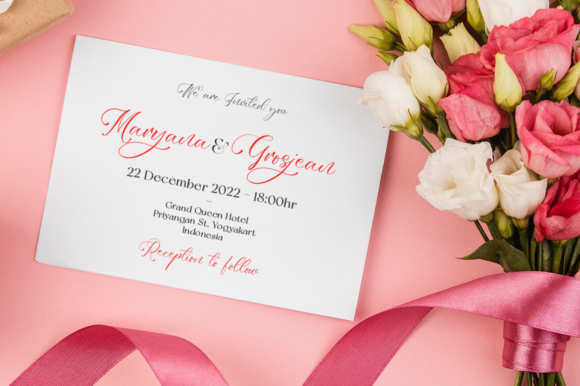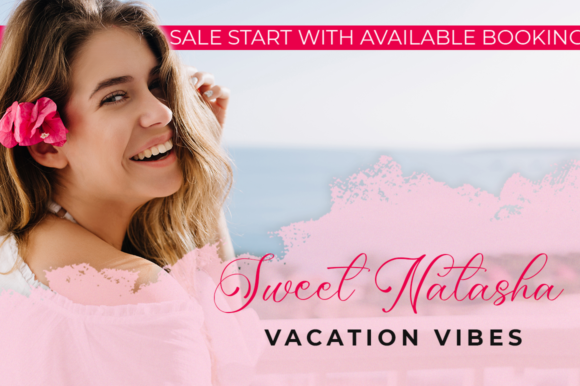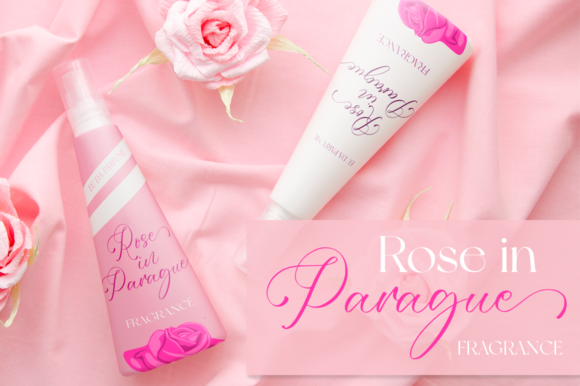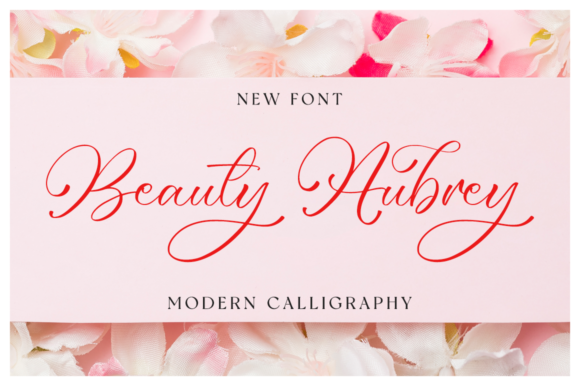
Beauty Aubrey is an elegant handwritten font that feels both gorgeous and distinct.
It looks beautiful on wedding invitations, thank you cards, quotes, greeting cards, logos, business cards, and every other design which needs a customized touch This font is PUA encoded, which means you can access all of the glyphs and swashes with ease.
Beauty Aubrey Font offers exceptional quality and versatility, making it a valuable addition to your design toolkit. Whether you’re creating for personal projects or commercial use, Beauty Aubrey Font delivers professional results.